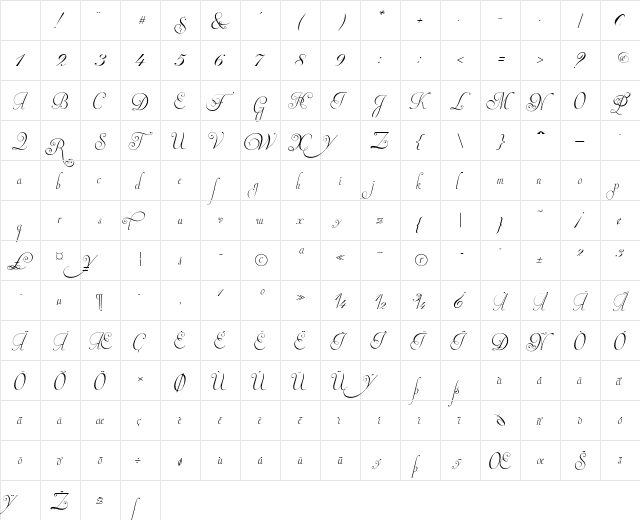
Complete Invitation Script LIMITED FREE VERSION Regular glyph index. Displaying only characters natively supported by Invitation Script LIMITED FREE VERSION Regular font.
Invitation Script LIMITED FREE VERSION flows with the natural rhythm of handwritten lettering, making it ideal for designs that call for warmth and personal expression.
Font Pairing: Combine Invitation Script LIMITED FREE VERSION with a simple geometric sans for maximum contrast - the tension between flowing curves and clean structure is a classic typographic pairing.
Pro Tip: Use Invitation Script LIMITED FREE VERSION for short runs of text - names, titles, or taglines. Extended body copy in script faces tires the eye quickly.